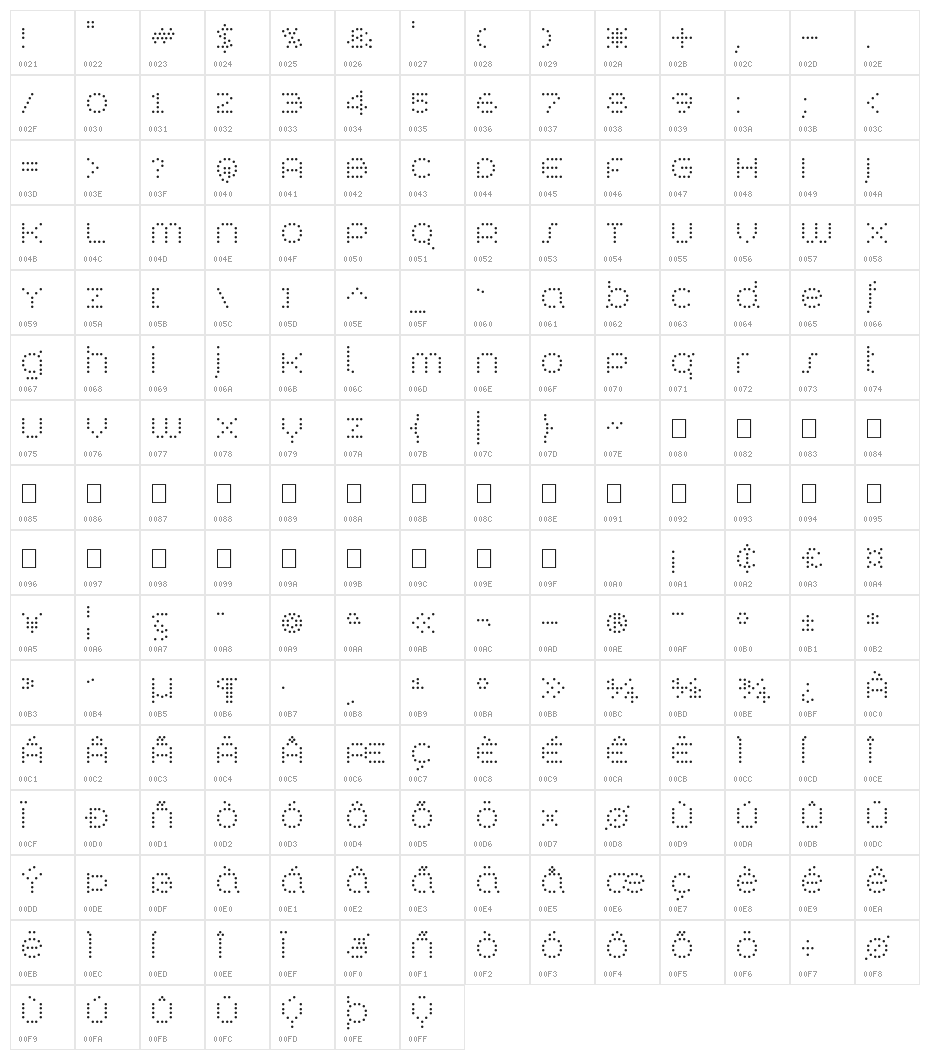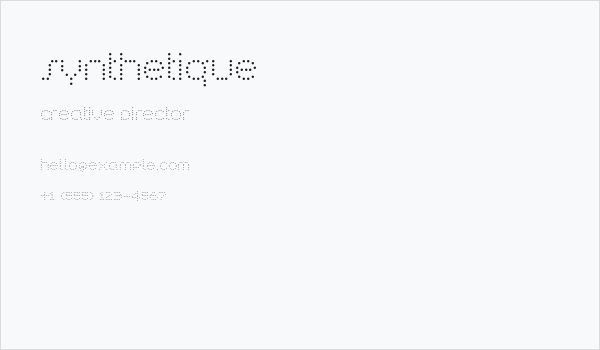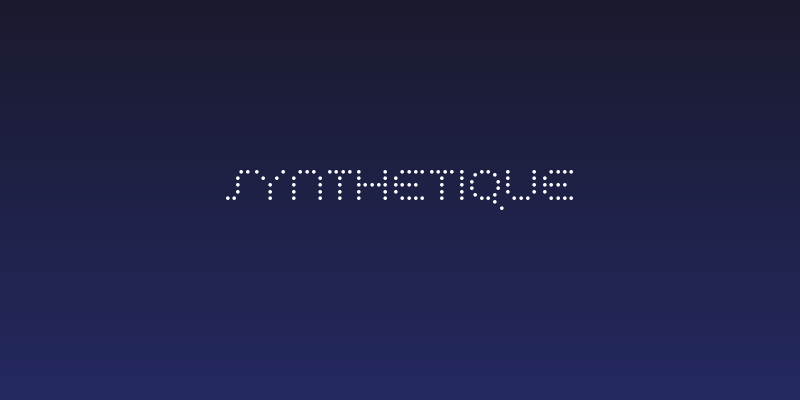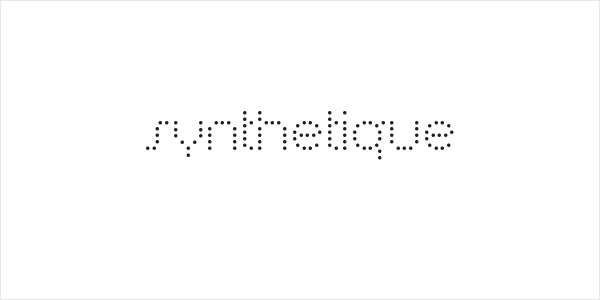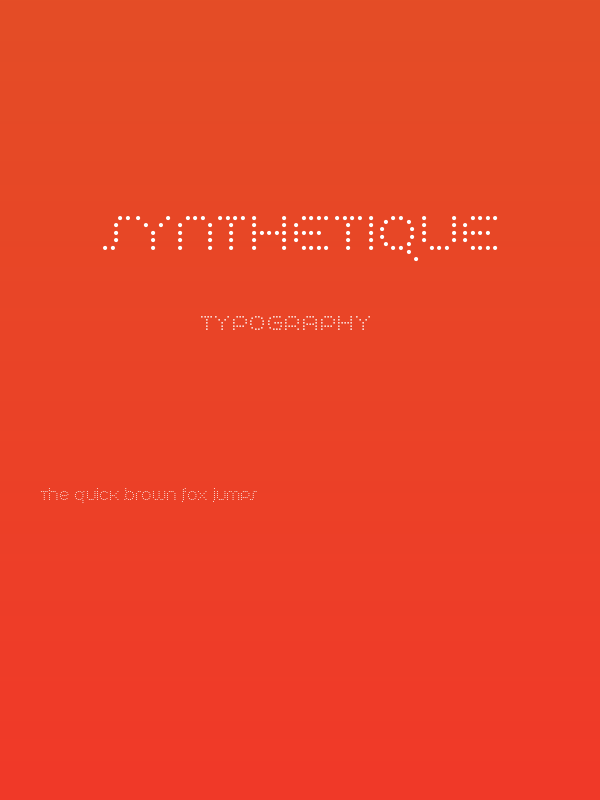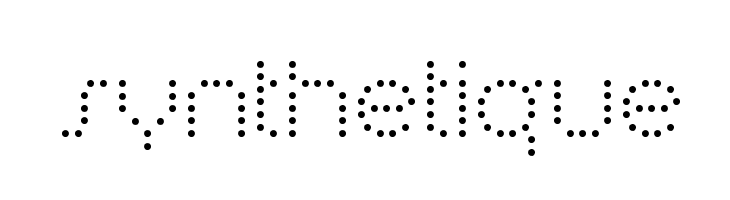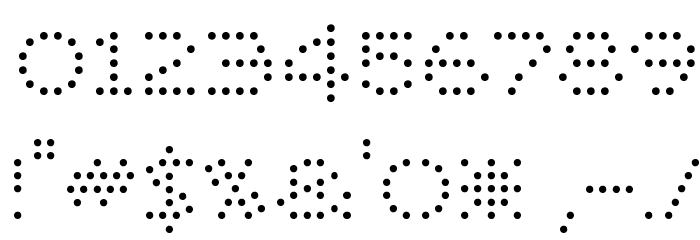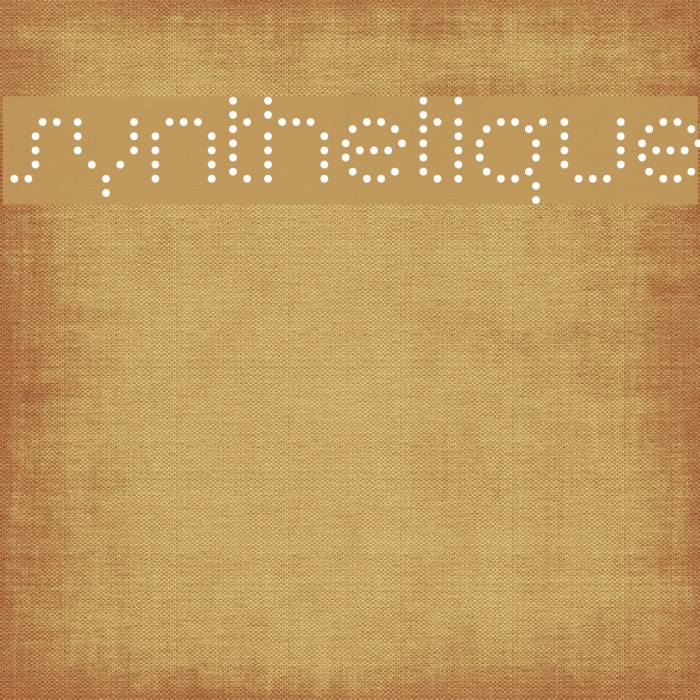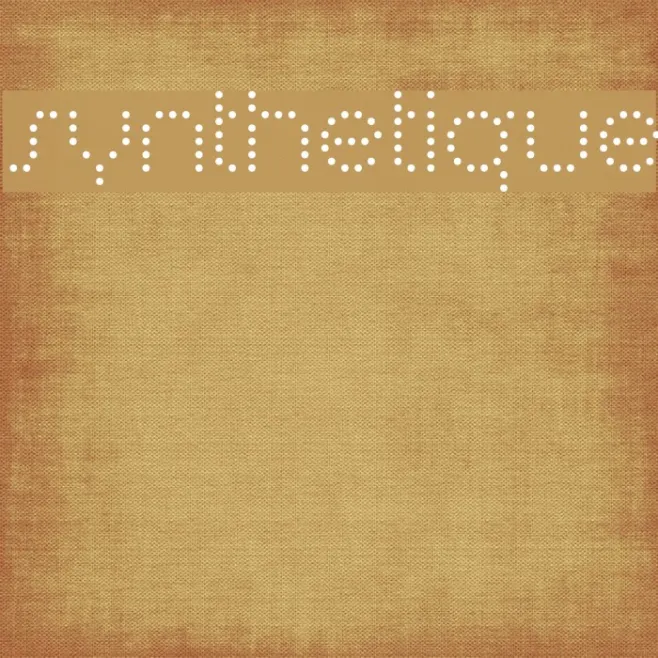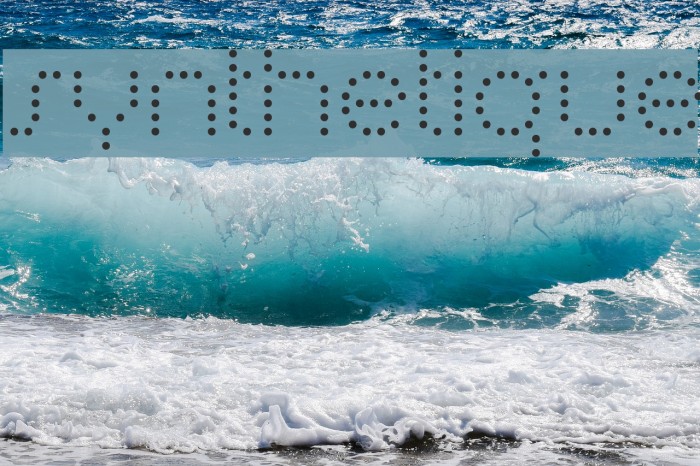
Synthetique Font
Synthetique Description
This font features a unique dotted design, where each character is composed of evenly spaced dots forming the shape of letters and numbers. The style is highly geometric and modern, giving it a digital or futuristic appearance. The uniformity of the dots provides a consistent texture across all characters, making it visually striking and easily recognizable. The font maintains a balanced proportion between the height and width of each character, ensuring readability despite its unconventional design. The spacing between the dots is consistent, contributing to a clean and organized look. This font is particularly suitable for creative and tech-oriented projects, where a distinctive and modern aesthetic is desired.
| Proposed Projects | Ideal for tech branding, digital art projects, modern posters, and innovative product packaging. |